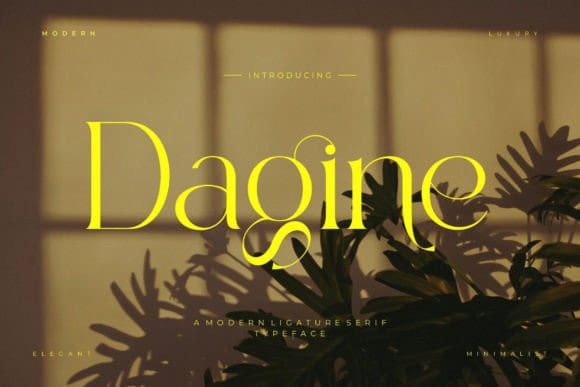
Dagine Font
Dagine Font is a modern serif typeface inspired by the famous minimalist logo perfect for designing templates, brochures, videos, advertising branding, logos, invitations, layout designs, elegant crafting, beauty design, and others.